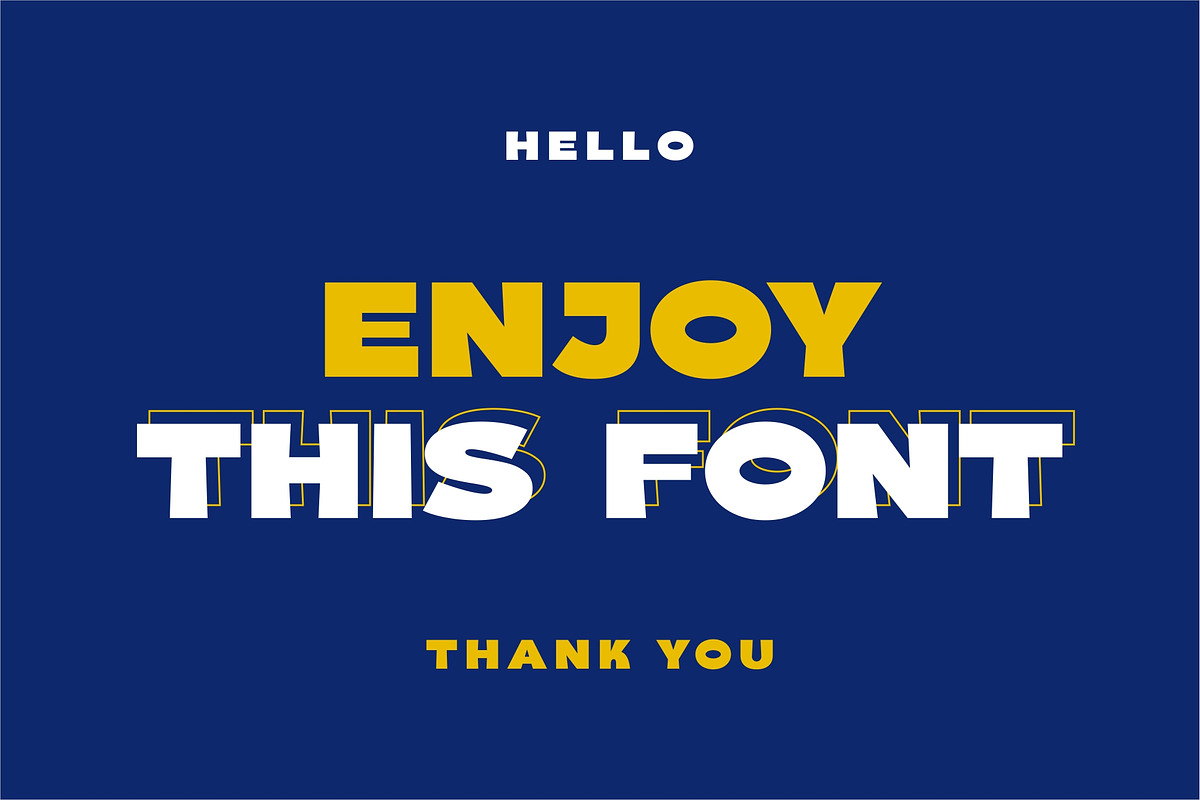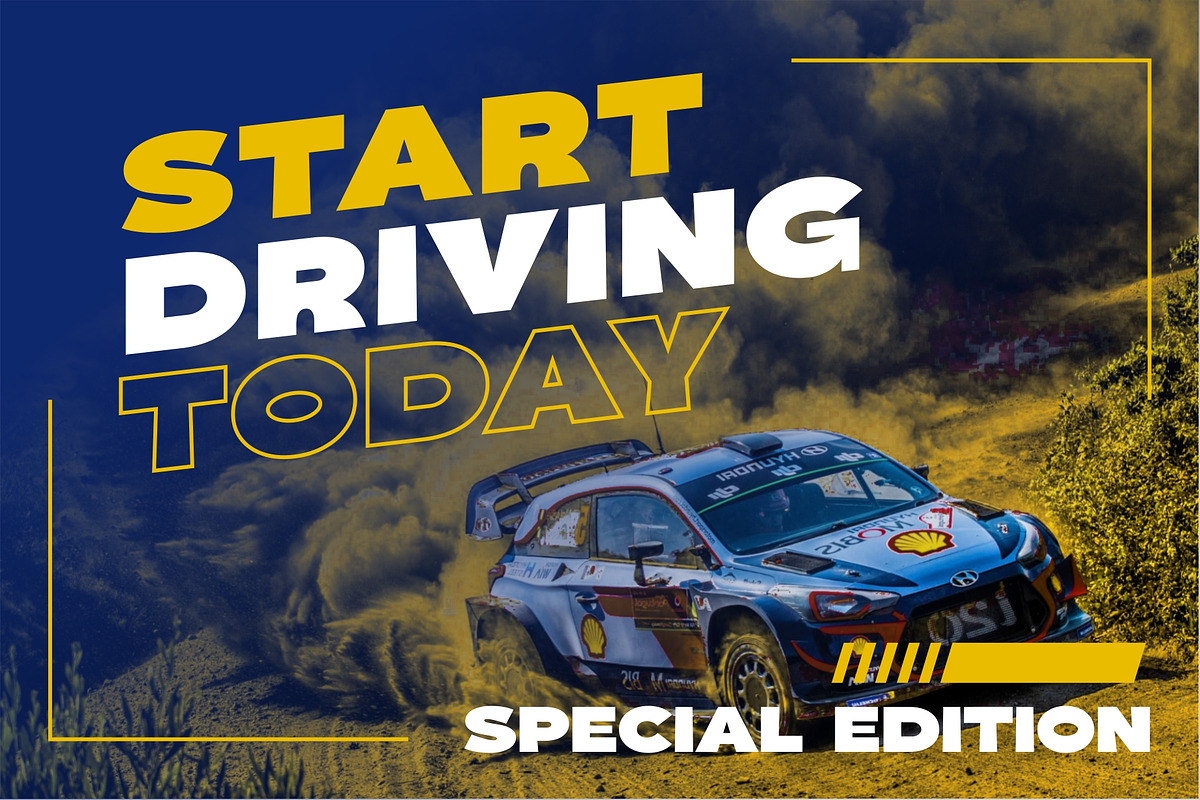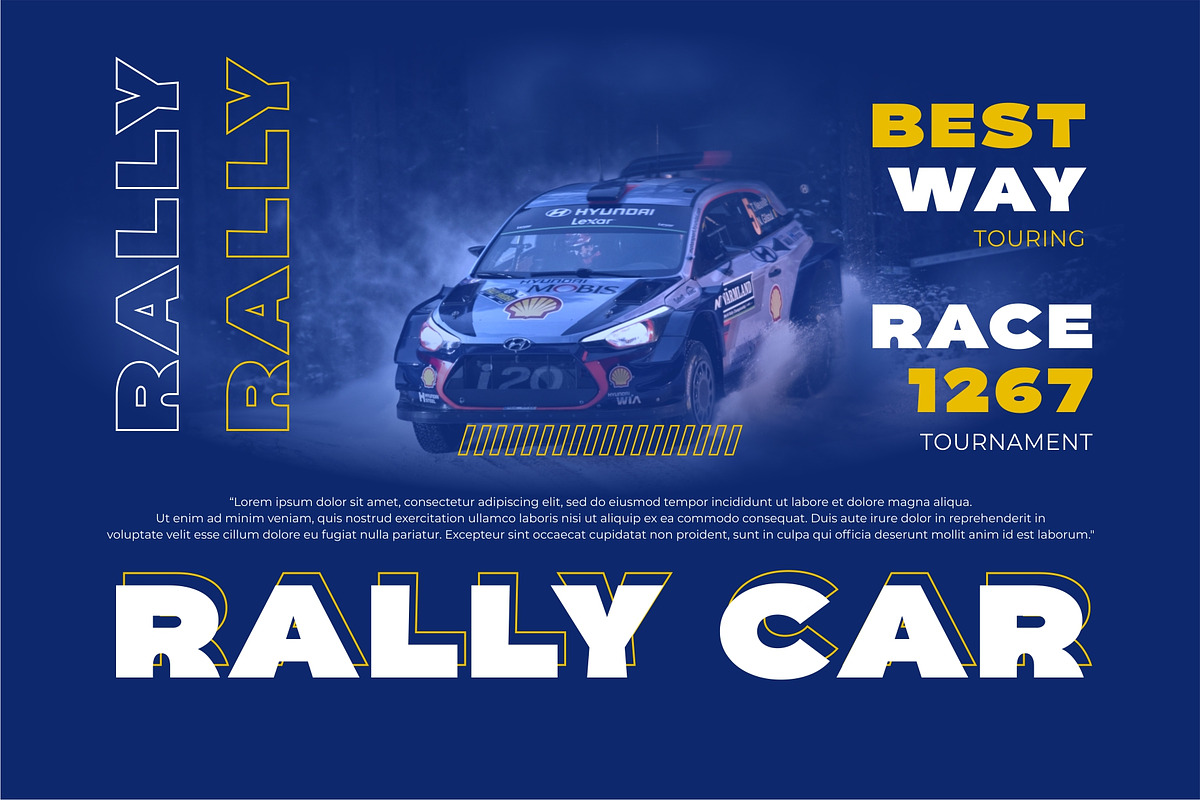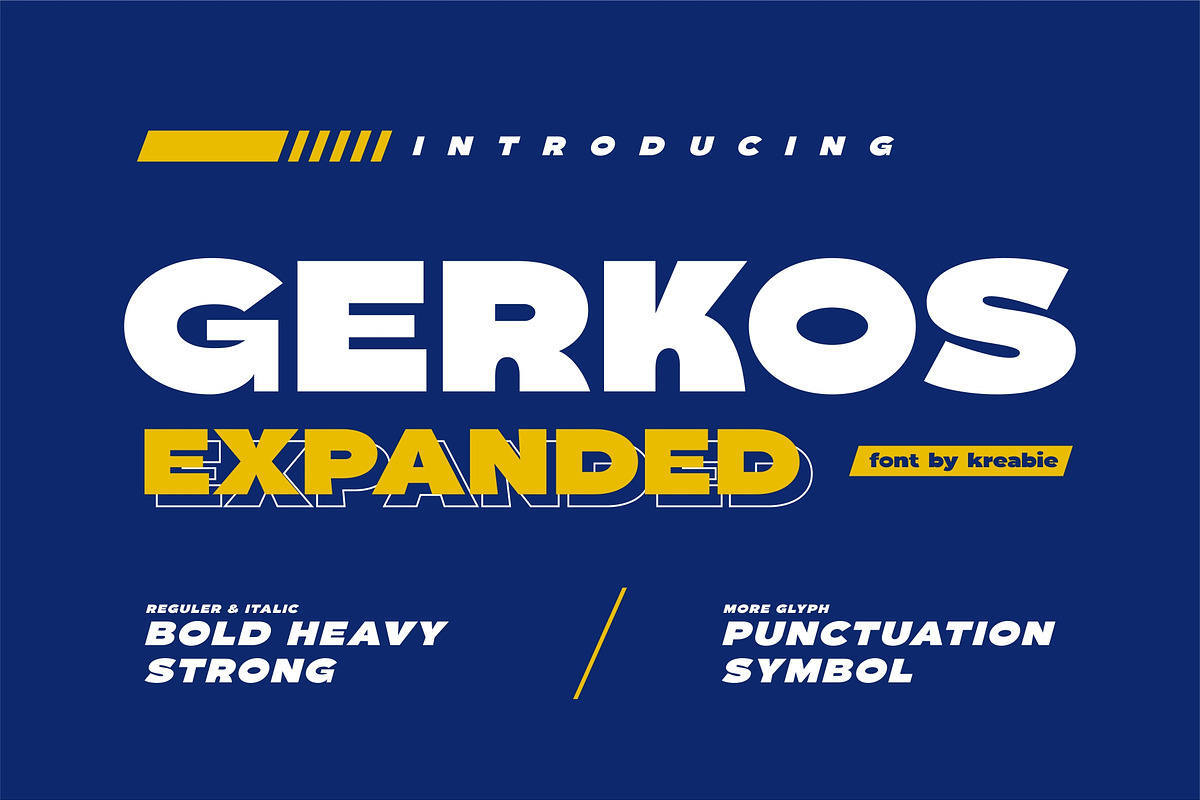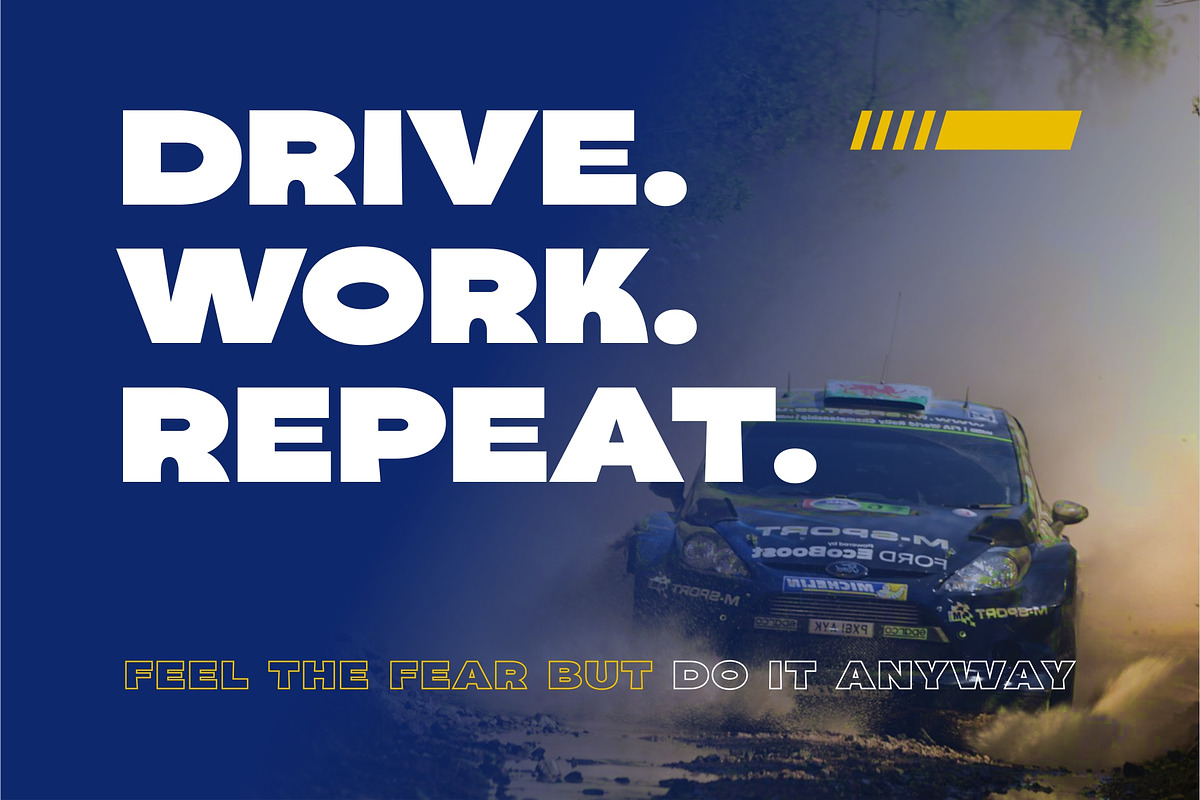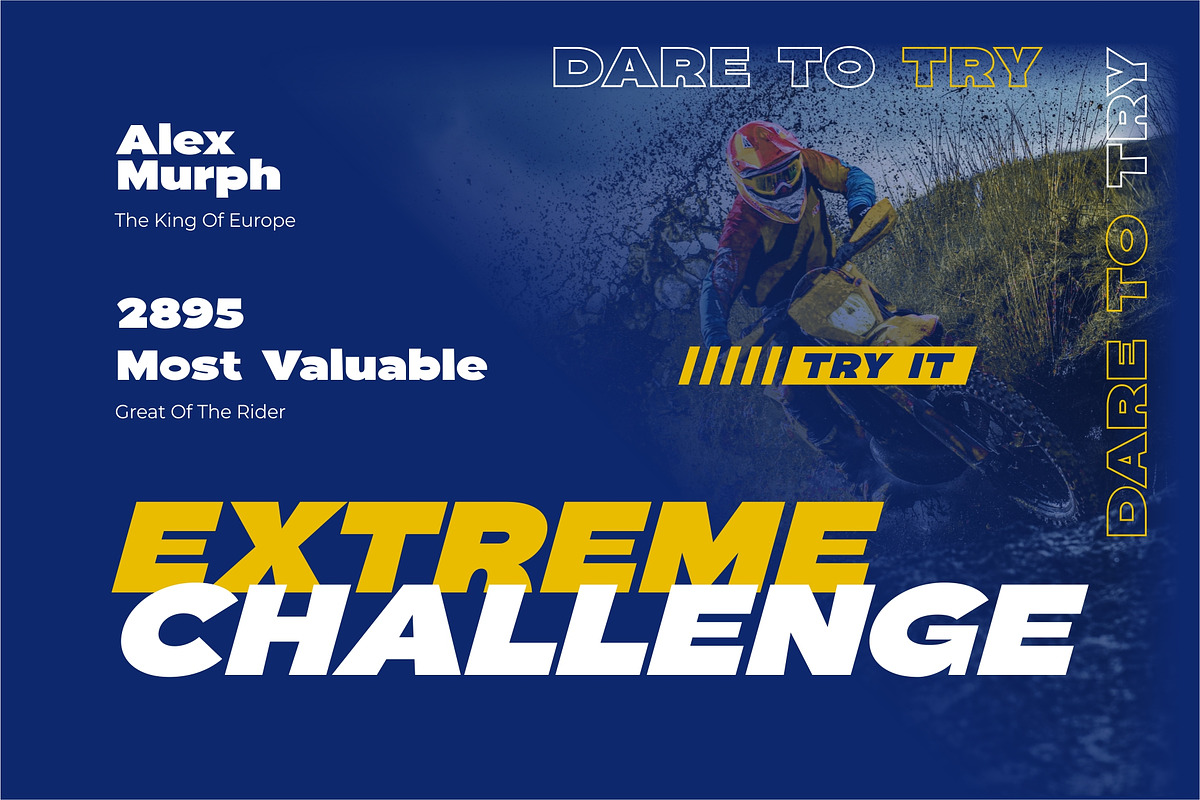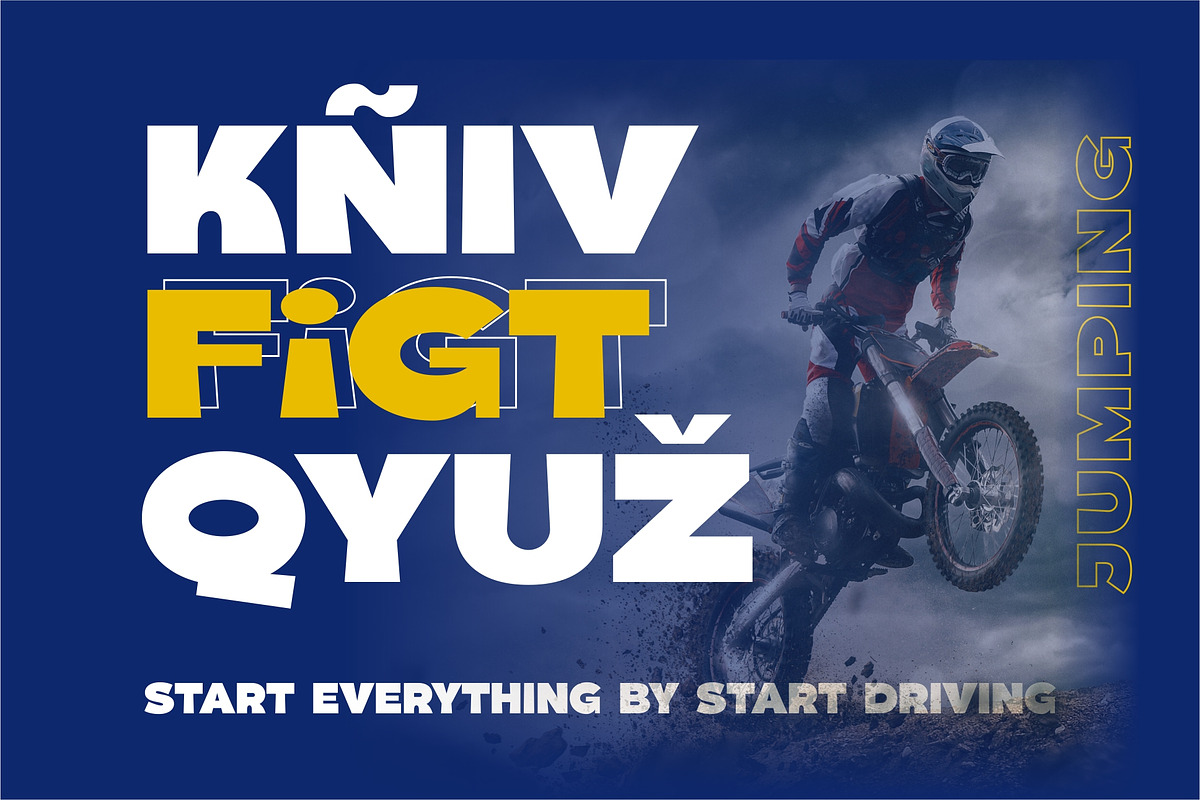
GERKOS EXPANDED
GERKOS EXPANDED its font which has a bold, heavy, strong, youthful, vibrant, creative and communicative impression makes it stand out from other fonts, making it perfect for anyone who wants to make a statement.,The font is suitable to use for many occasion such as shop, fashion, hotel, movie title, brand, and many more.
- Reguler, & Italic
- Basic Latin A-Z & a-z
- Punctuation & Symbol
- Character